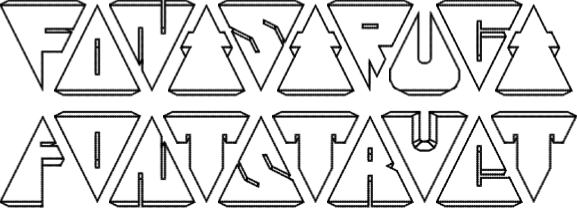
• This one is a bit tricky but has a nice effect when used properly (pic below). Simply alternate upper and lower case for each letter in a word. You will also need to put 6 or 7 spaces between words to keep them from overlapping. I may do some variations on this one depending on how well it is received.
wow, zipper teeth to write with, so unusual! Congratulations, a well deserved TP!
Very imaginative and really well done.
Alternate upper and lowercase? Was my gears font inspiration? Gah! I love this!
Great concept. Spacing on u may need some adjusting.